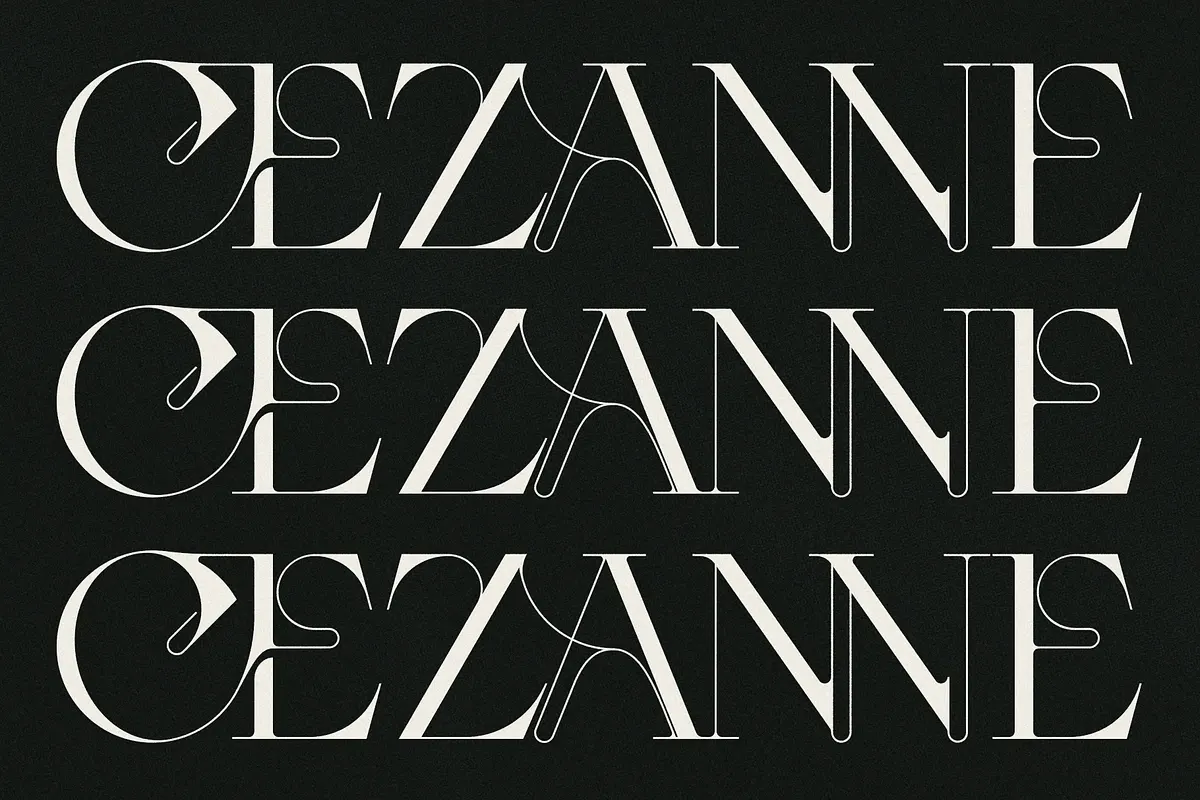
CEZANNE - Modern Ligature Serif Font Free Download
CEZANNE - Modern Ligature Serif Font Free Download is a sleek and sophisticated typeface that combines the timeless elegance of serifs with modern ligatures for a unique and refined look. With its high-contrast strokes, stylish ligatures, and contemporary feel, CEZANNE is perfect for luxury branding, editorial designs, logos, and high-end product packaging.
CEZANNE - Modern Ligature Serif Font Free Download offers a perfect balance of classic sophistication and modern design elements, making it ideal for both print and digital projects. Whether you're creating a polished logo, designing a stylish magazine cover, or crafting sophisticated promotional materials, CEZANNE adds a touch of elegance and modern flair to your typography. Download it today and elevate your designs with the graceful style of CEZANNE!